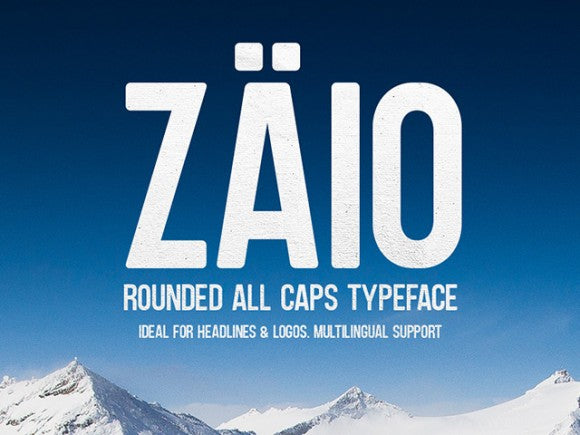
Free Zaio A all caps rounded font
Download and enjoy this free zaio a all caps rounded font. Cool typeface to showcase your designs in a modern way. Freebies Bug has created this amazing and beautiful typeface. You can create a professional designs with this beautiful font.